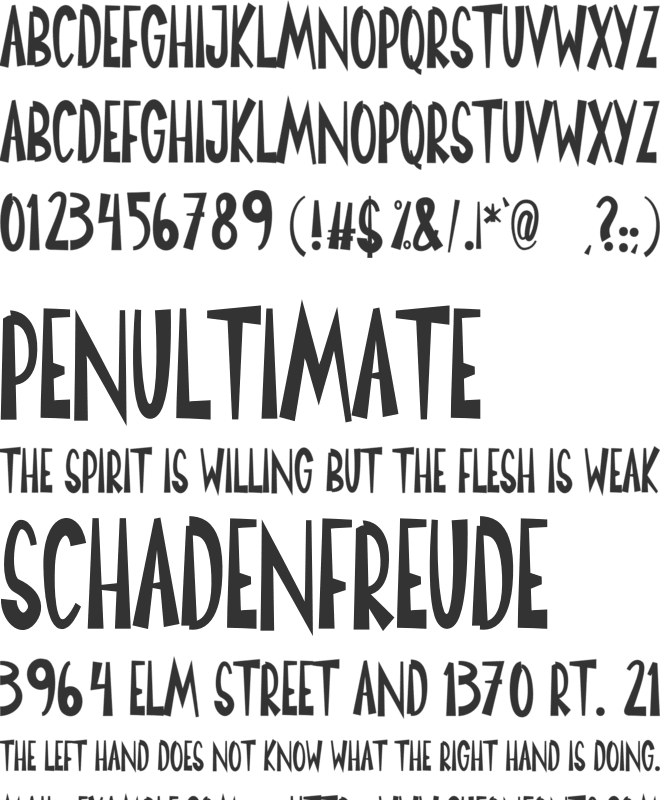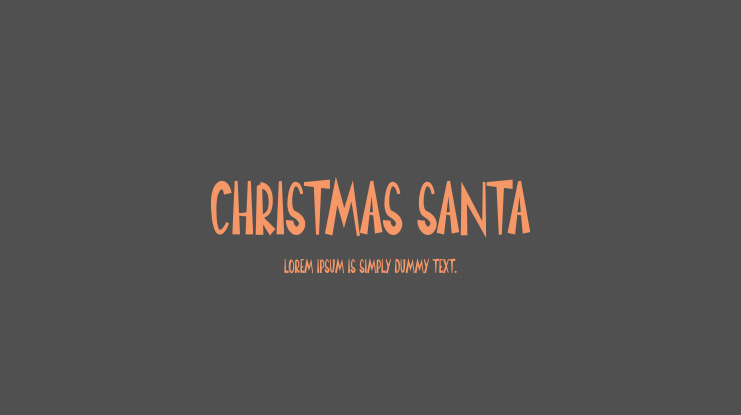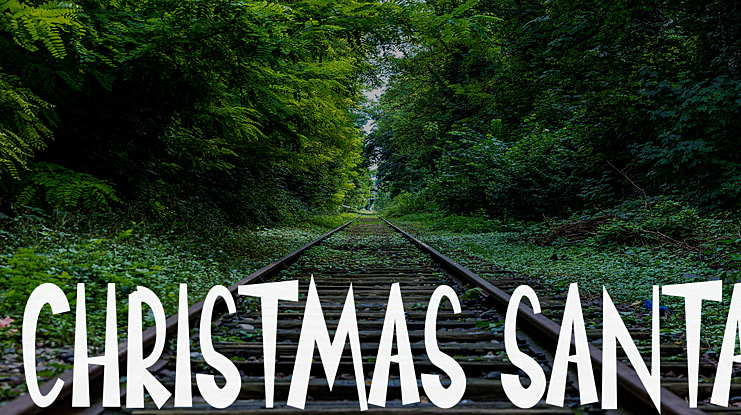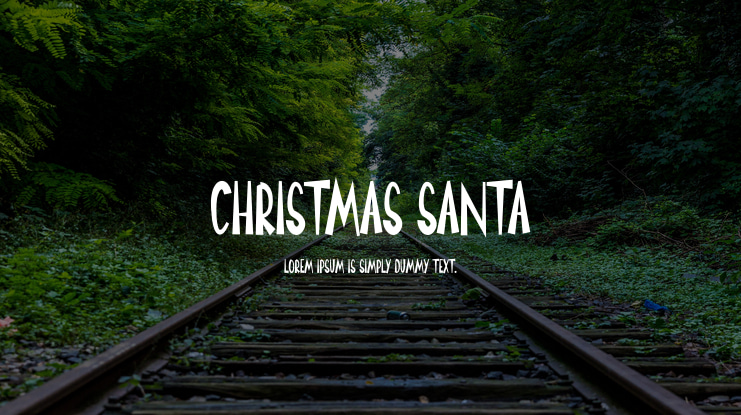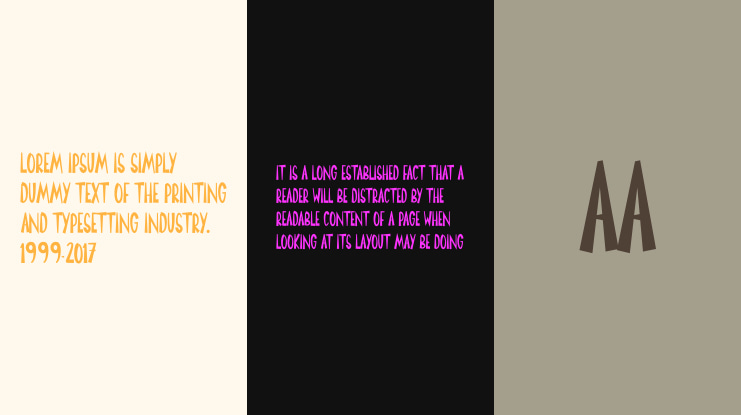
Christmas Santa Font
Christmas Santa is a cute and quirky display font. It will add an incredibly joyful touch to your designs. Add this beautiful display font to each of your festive ideas and notice how it makes them stand out!